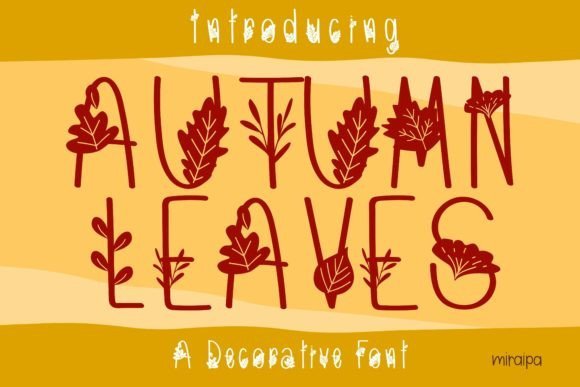
Adding a Touch of Cozy Charm to Your Designs
As you sit at your desk, surrounded by half-finished projects and scattered inspiration, you’re hit with a burst of creativity. The leaves outside are changing colors, and you can’t help but feel a sense of excitement and possibility. It’s moments like these that remind you why you love being a designer – the chance to bring your ideas to life and make them shine.
That’s exactly what the Autumn Leaves Font is all about. This lovely decorative font is perfect for adding a friendly touch to your autumn-related designs, from wedding invitations to party decorations. Its warm, inviting style makes it a valuable asset for any designer looking to add a cozy charm to their work.
With the Autumn Leaves Font, you’ll be able to breathe new life into your DIY projects and make them truly special. Whether you’re working on a back-to-school project, a blog post, or a social media post, this font is sure to bring a smile to your face and delight your audience.
Autumn Leaves Font Key Features
- Font Family: Autumn Leaves is a custom, hand-drawn font family, perfect for creating a unique and elegant look.
- Character Count: The Autumn Leaves font family includes over 200 characters, including uppercase and lowercase letters, numerals, and punctuation marks.
- Unique Characteristics: The Autumn Leaves font features a distinctive, hand-drawn style with intricate details and subtle texture, giving it a warm and inviting feel.
Autumn Leaves Font Review
Overall, I think the Autumn Leaves Font is a great addition to any designer’s toolkit. The font’s use of organic shapes and natural elements is ✨ visually appealing and adds a unique touch to any project.
The font’s versatility is another major plus. It can be used for a variety of projects, from blog posts and social media graphics to print materials and signage. The font’s ability to be customized and adapted to different styles is ✨ a huge advantage.
However, I do have a few ⚠️ concerns about the font. Firstly, it may not be suitable for all types of projects, particularly those that require a more formal or traditional look. The font’s organic and natural feel may clash with these types of projects.
- ⚠️ May not be suitable for projects that require a more formal or traditional look
- ⚠️ Some users may find the font’s unique style too busy or overwhelming
Overall, I think the Autumn Leaves Font is a great choice for designers looking to add some personality and flair to their projects. While it may not be suitable for all types of projects, its versatility and customization options make it a valuable addition to any toolkit.